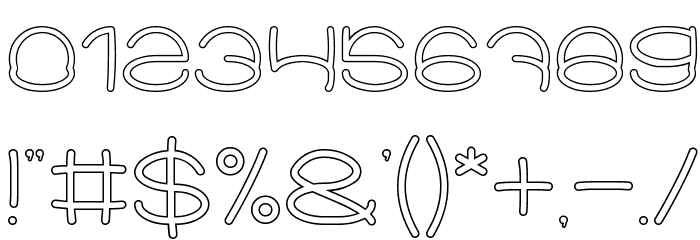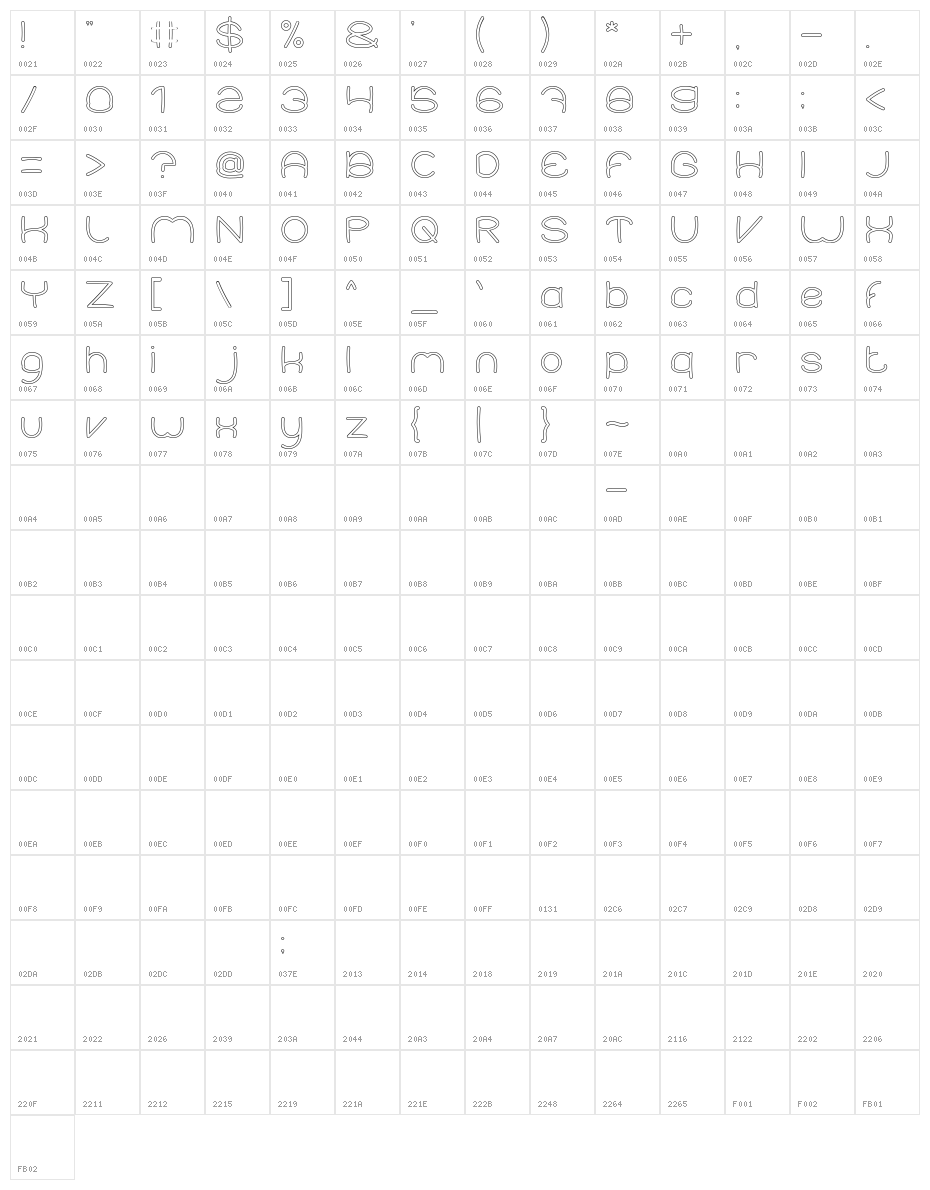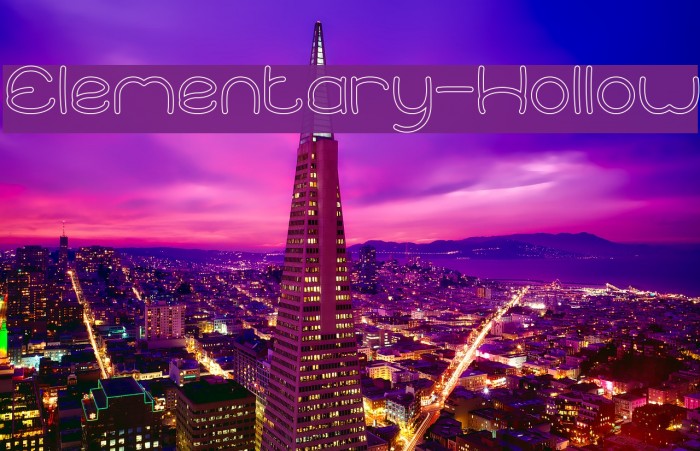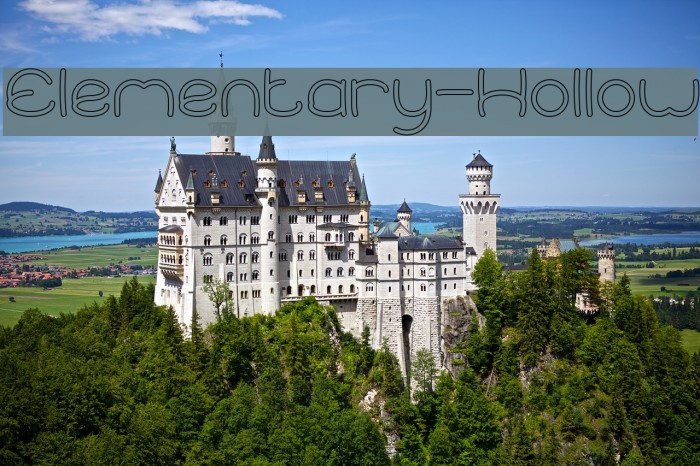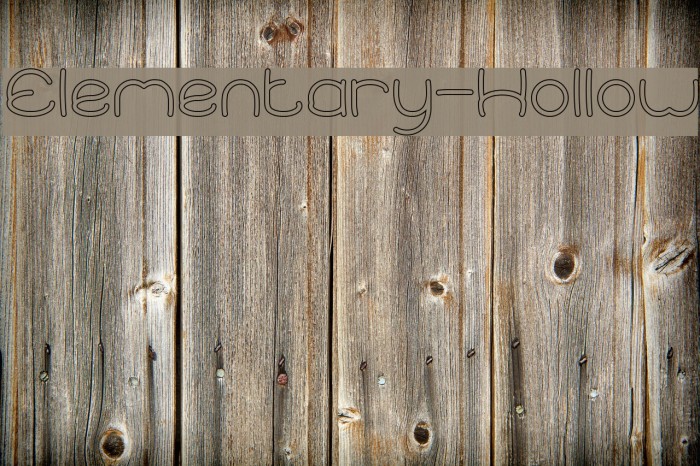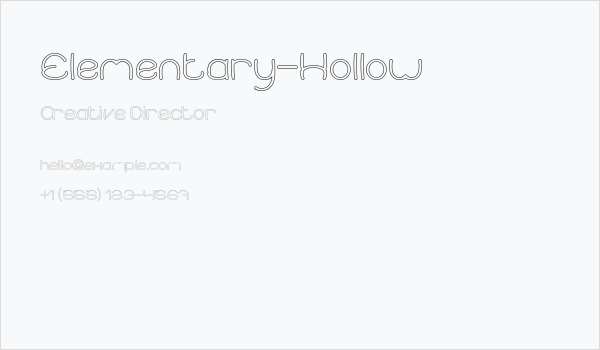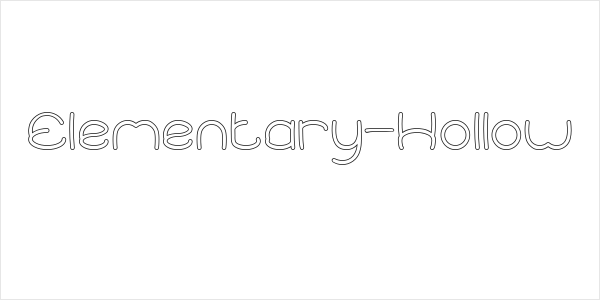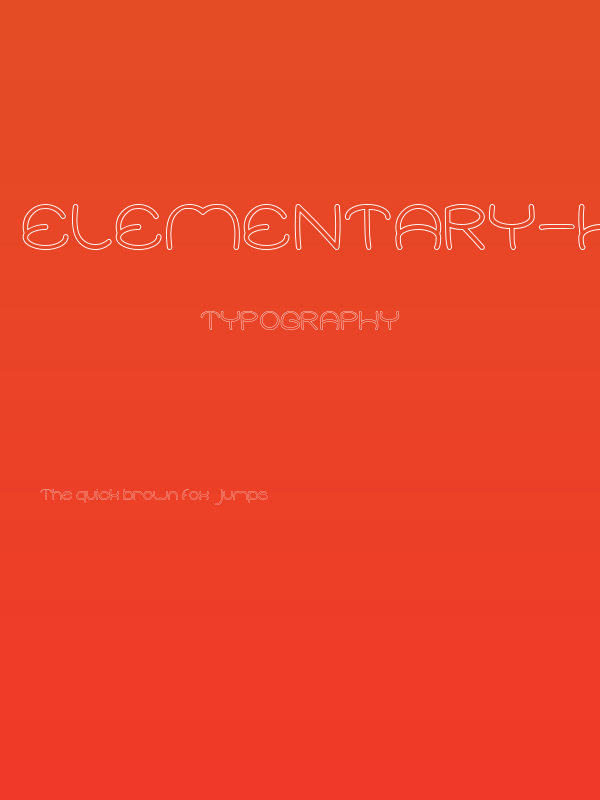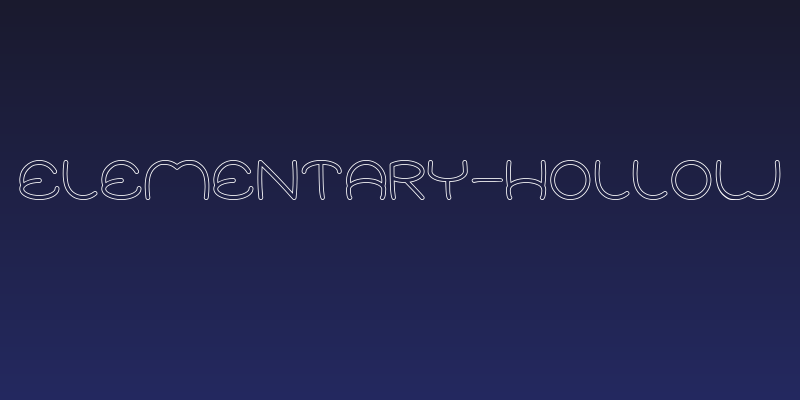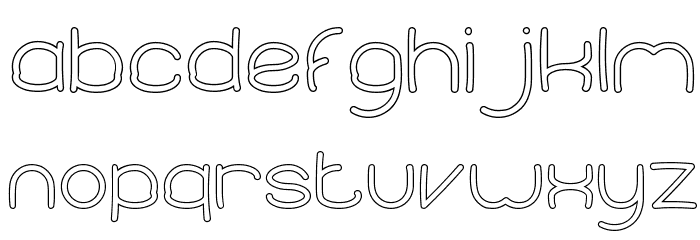
Elementary-Hollow Font
Elementary-Hollow Description
This font features a unique hollow design, characterized by its outline-only style that gives it a modern and airy appearance. The letters are rounded and smooth, with consistent stroke width throughout. The uppercase and lowercase letters maintain a uniform height, contributing to a cohesive look. Numbers and special characters follow the same hollow, outlined aesthetic, ensuring visual harmony across all elements. This font's open and spacious design makes it stand out, while still being legible and versatile for various applications.
| Proposed Projects | Ideal for creative projects such as posters, logos, and branding materials where a modern and airy feel is desired. |